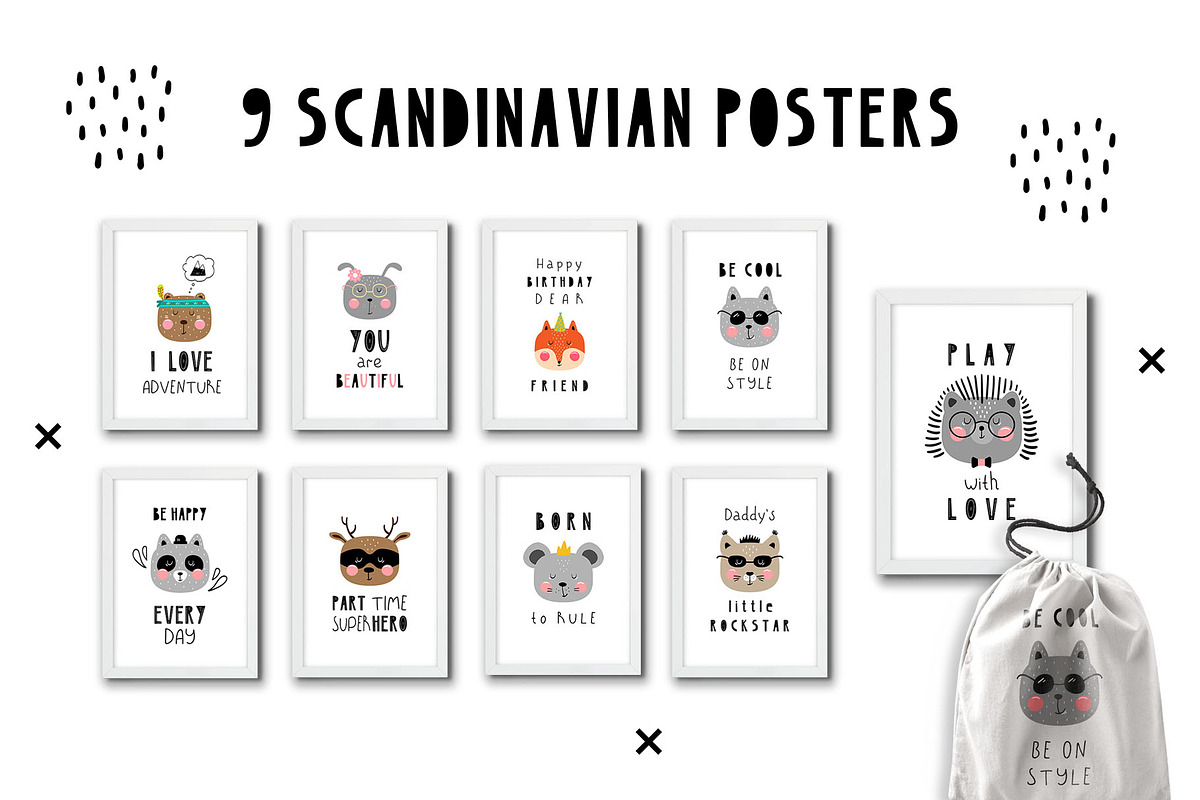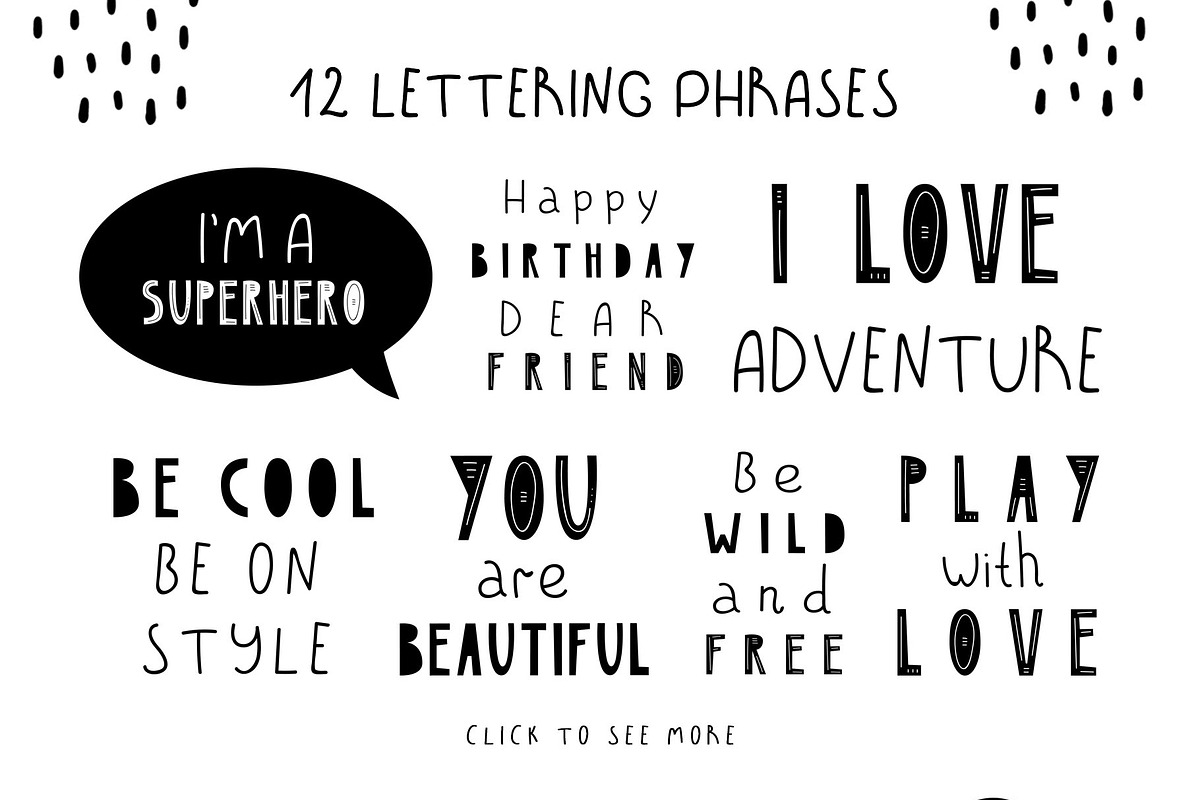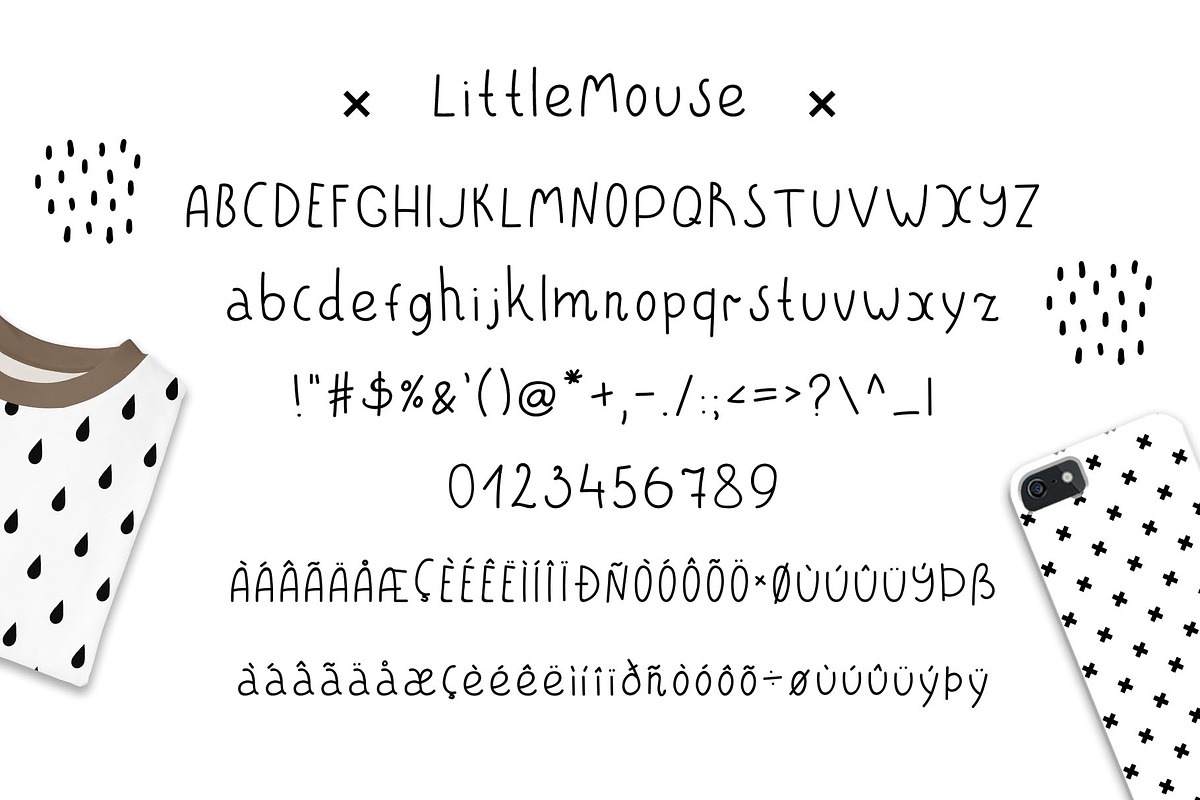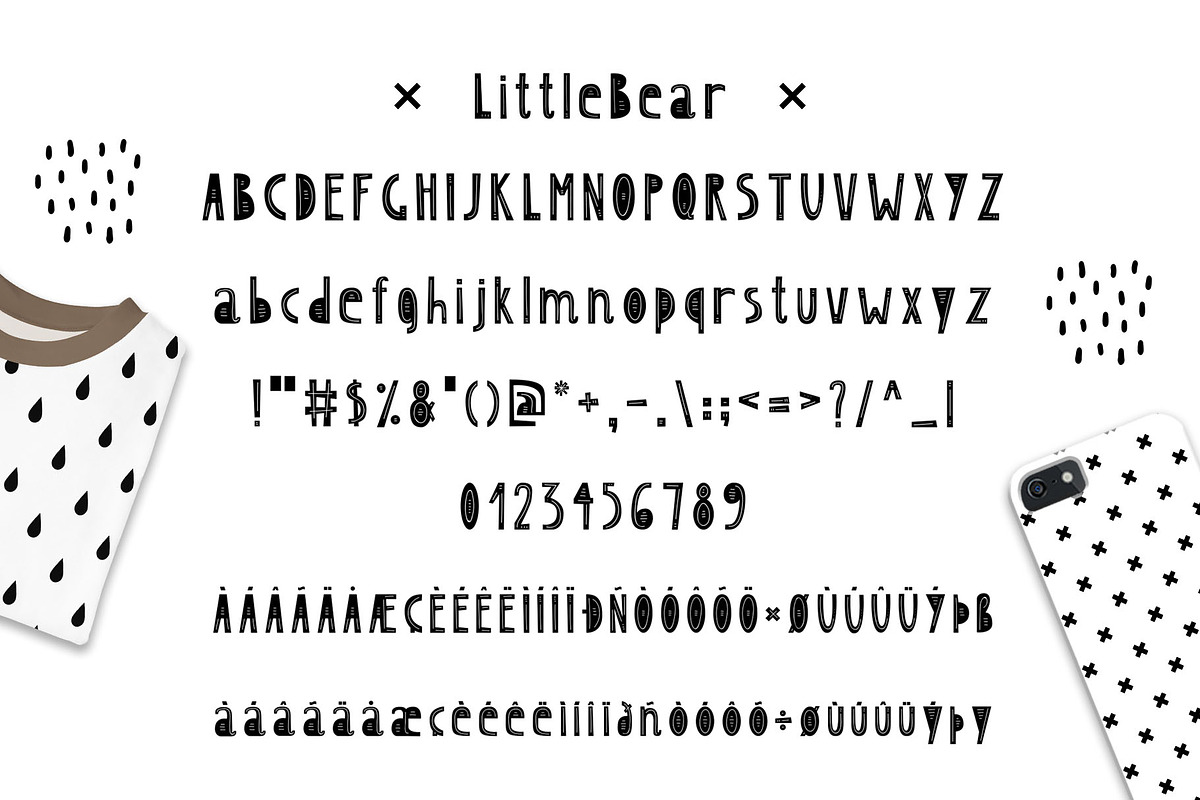
LittleBear & LittleMouse - Font Duo
Hi! I hasten to acquaint You with an amazing combination of children's fonts - LittleBear and LittleMouse! These two cute fonts are made by hand and with great love! With the help of fonts, you can make cards, prints on clothes, bright posters, calendars, brochures, maps, decorate the children's room, create invitations, wrapping paper, icons, mugs and more! Just take it and create a variety of design options! The fonts are perfect for Scandinavian style products!